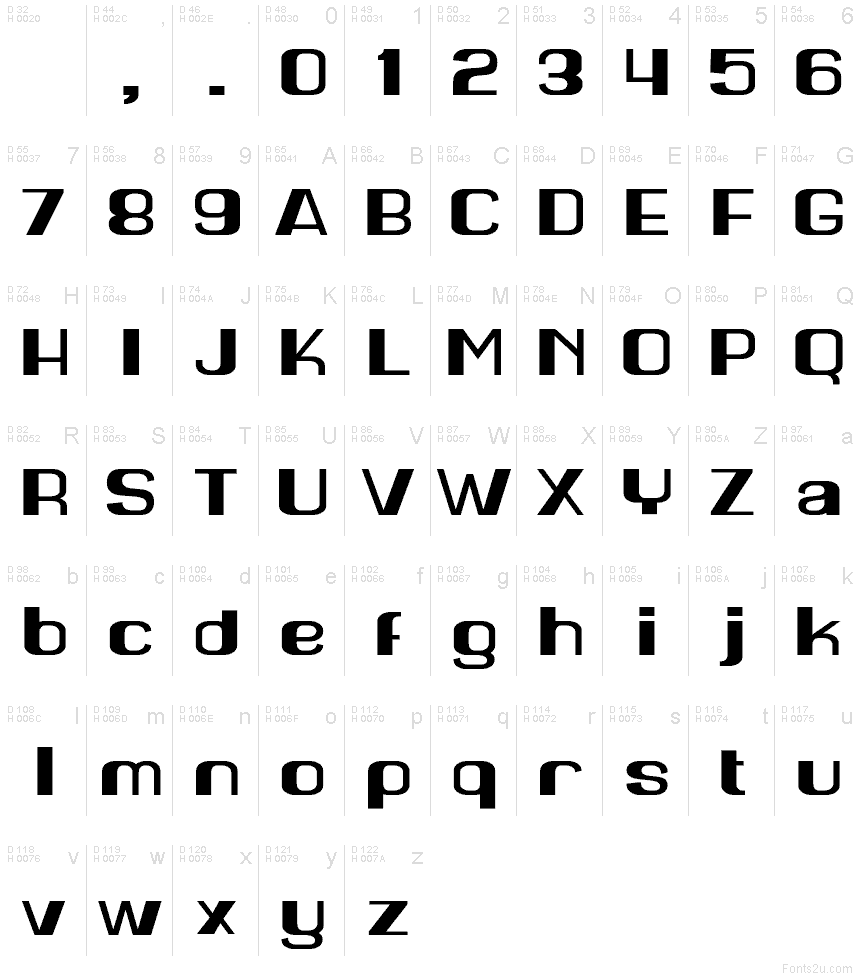
Poespa Indah font by Ikiiko Type is a free retro display typeface that snaps onto the page with confident, squared curves and a subtle modular feel. Its letters look like they were cut from glossy plastic—sturdy, upright, and just a bit futuristic—giving headlines a bold, architectural presence. The tight rhythm between characters creates a strong horizontal flow, so words feel like a unified logotype rather than a loose collection of letters.
Using Poespa Indah, you get a strong, punchy voice for posters, logos, magazine covers, packaging, album art, and bold social graphics. This free font loves big sizes where its blocky details and clean edges can really show off. Pair it with a light, neutral grotesk for body copy, and let Poespa Indah handle the loud, eye-catching moments in your layout.